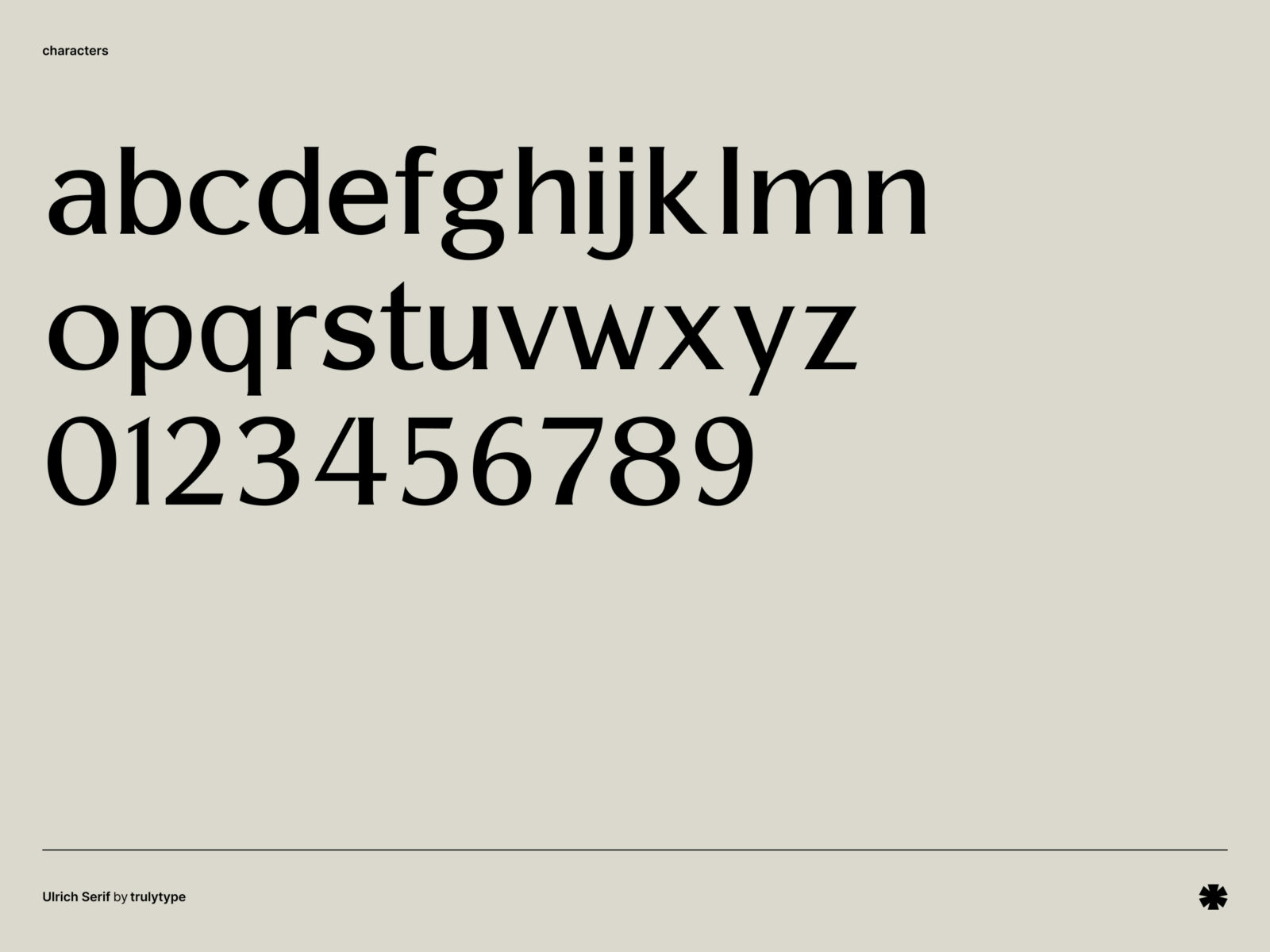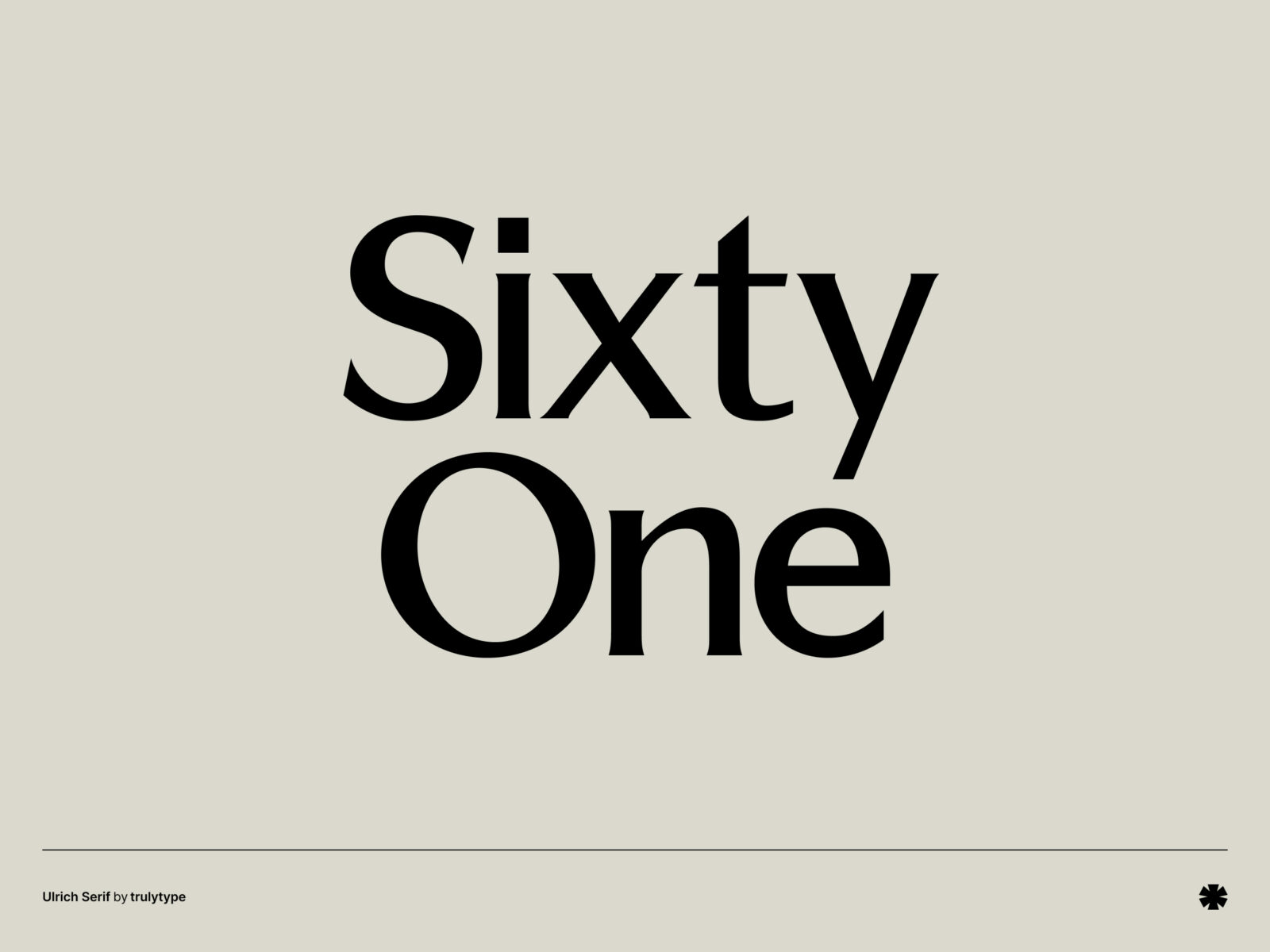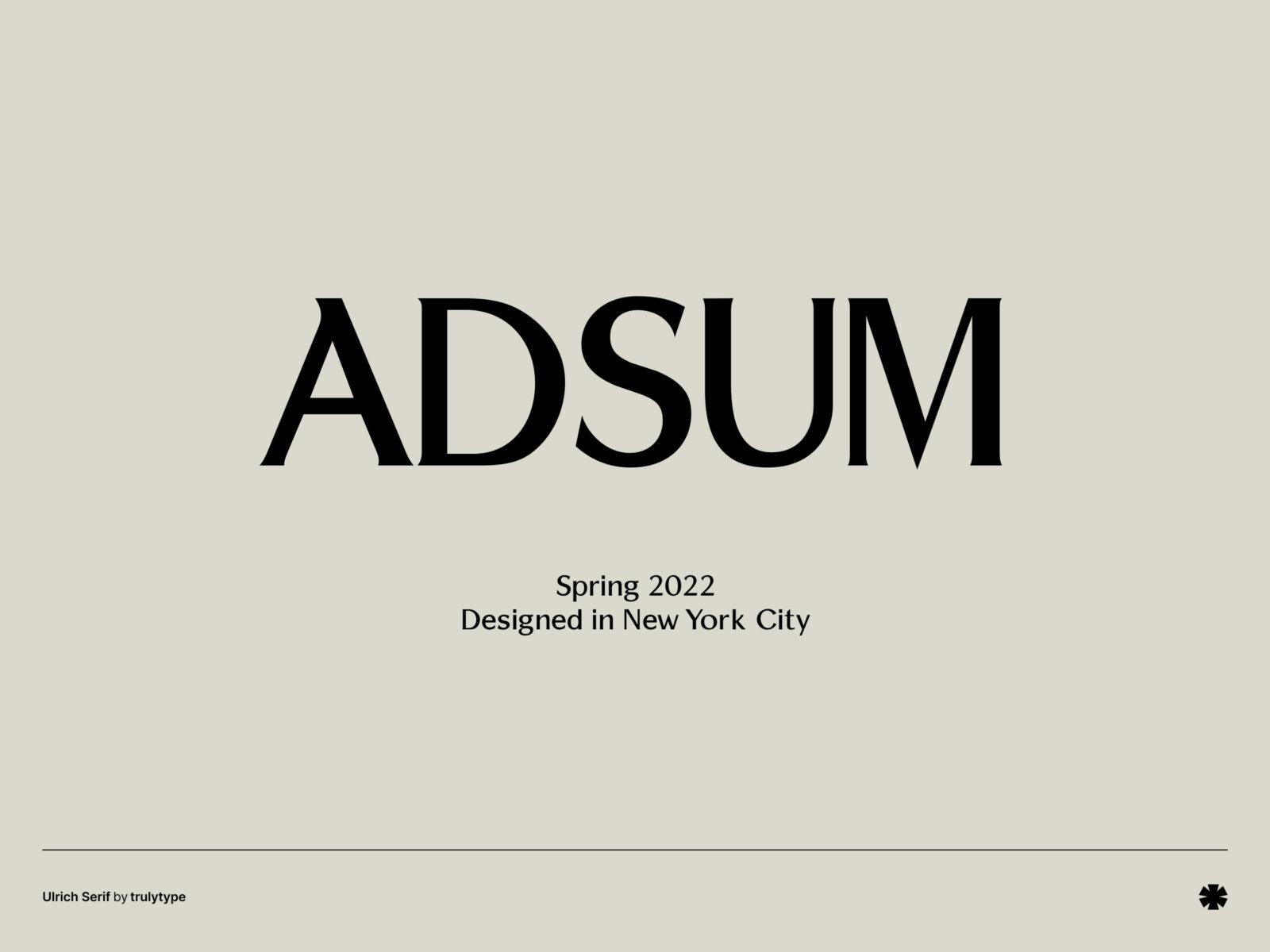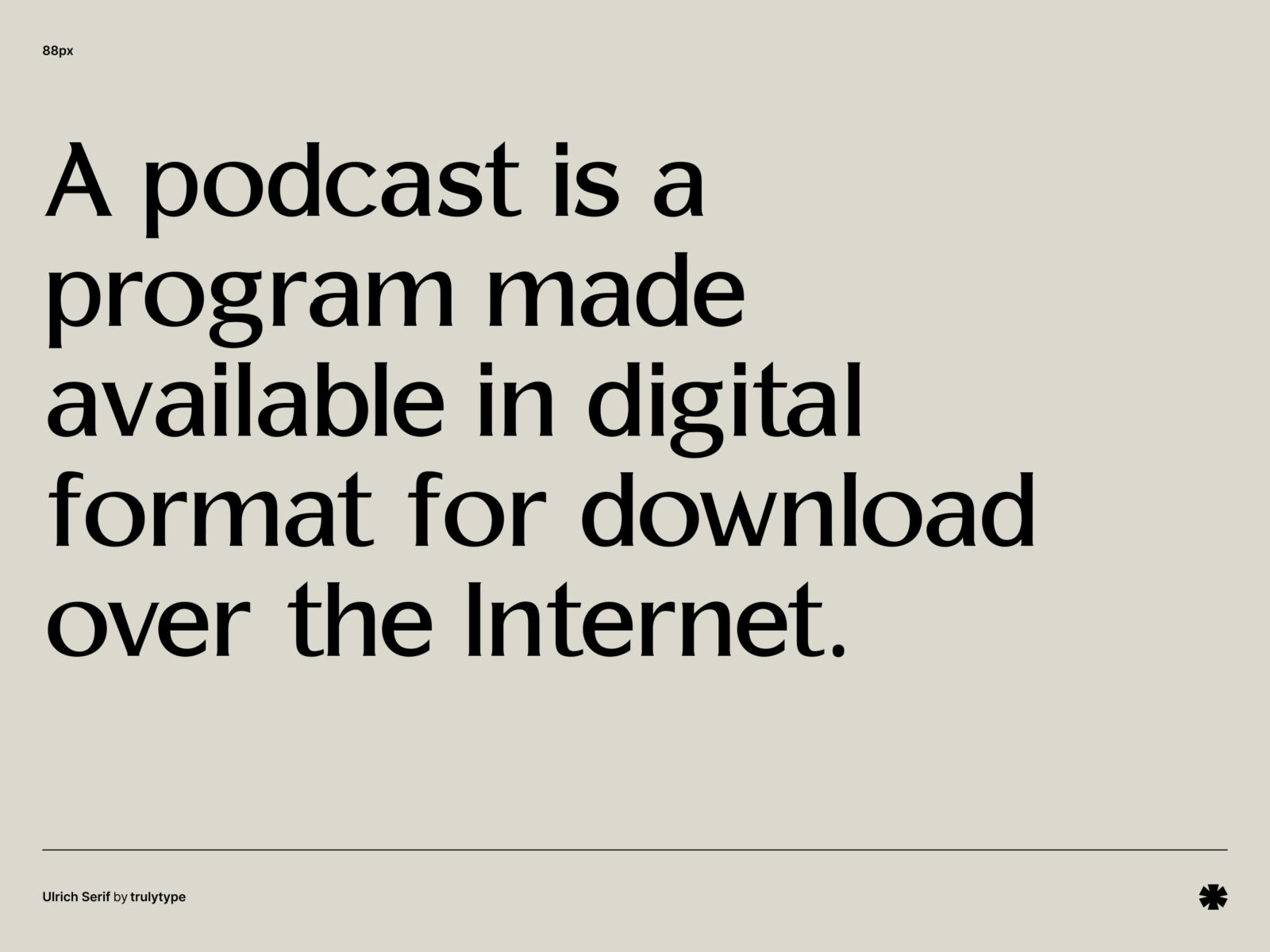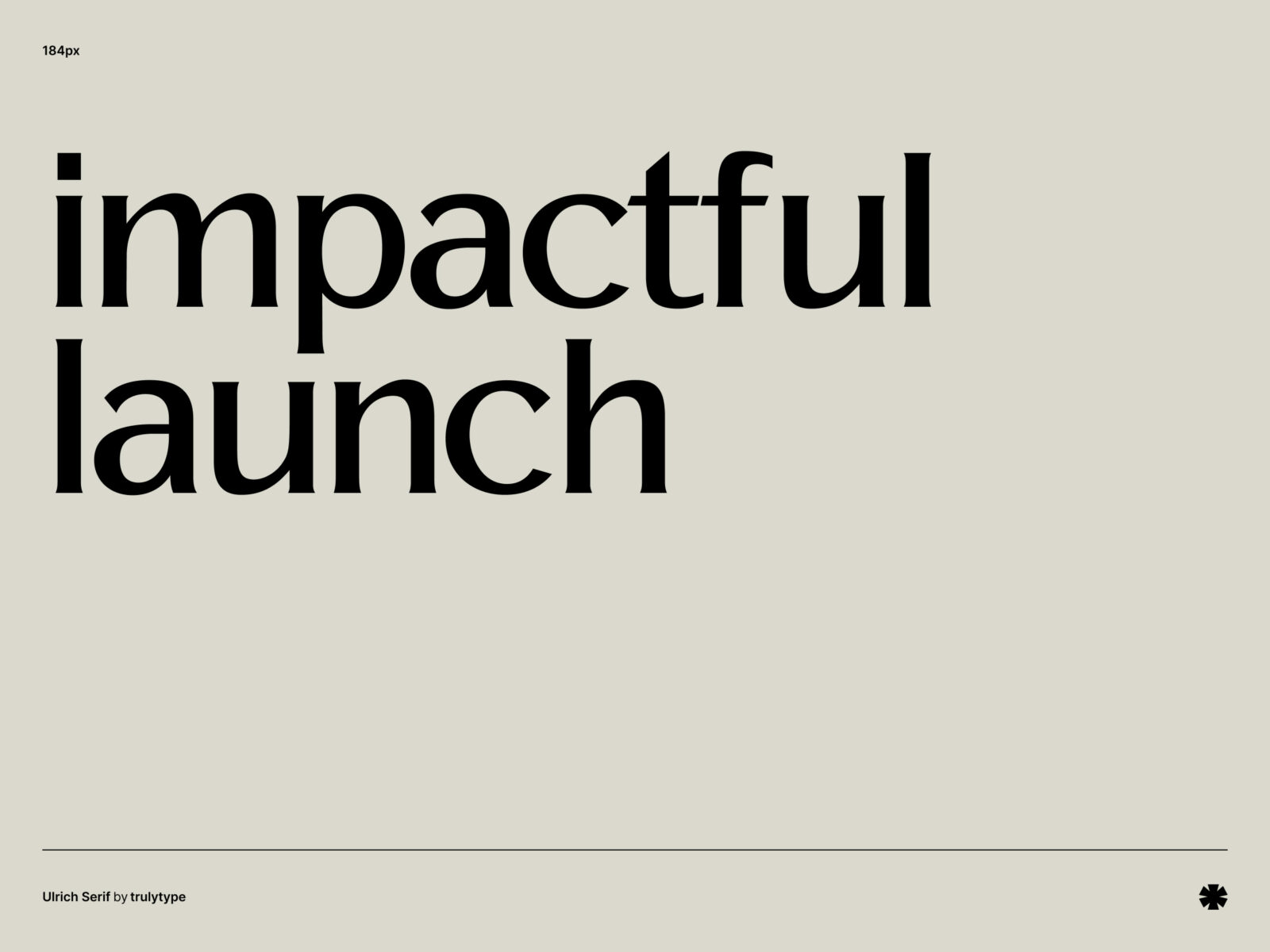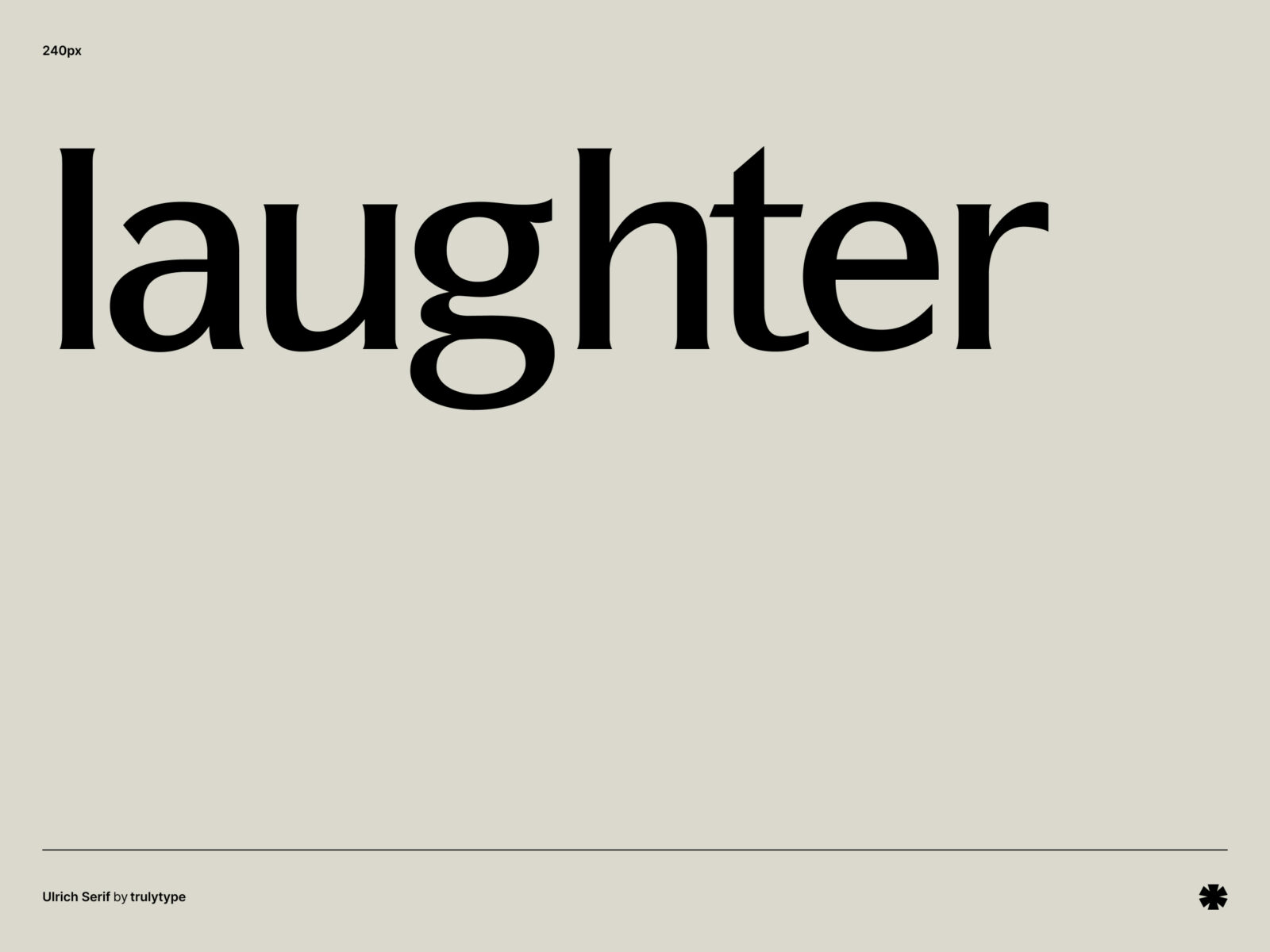
Released in 2018, Ulrich Serif is a modern, yet classical glyphic serif typeface that feels serious, settled, yet exciting at the same time. It's already a timeless classic in our eyes.